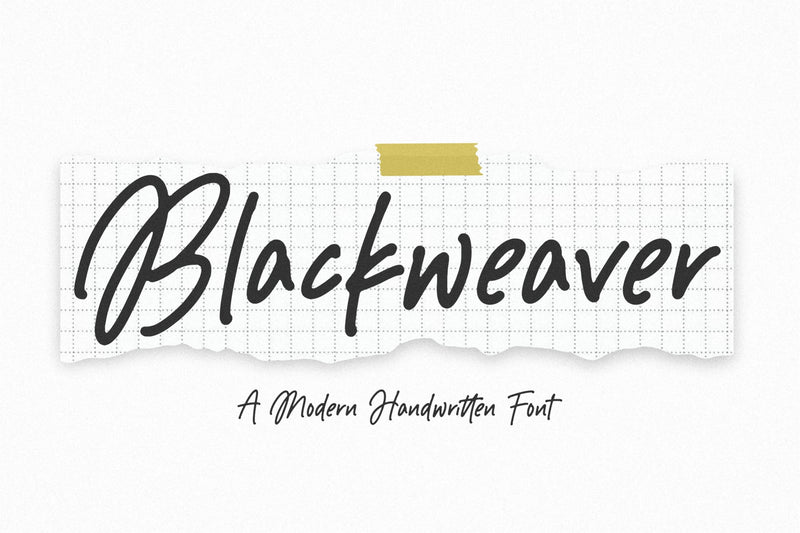
Blackweaver Modern Handwritten Font
Blackweaver is a Modern Handwritten Font. Sweet and joyful, this font will be ideal for writing wedding invitations, cards or any other design that may need a romantic, personalized touch!